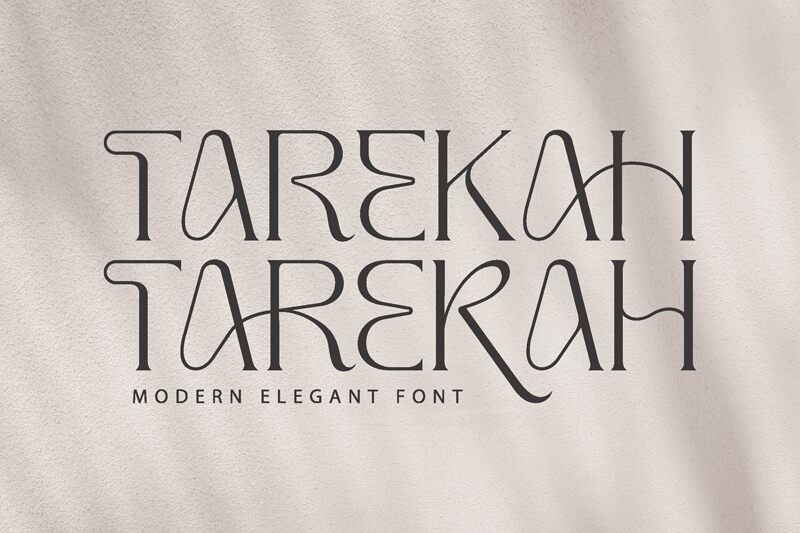
Tarekah font family by Denustudios is a free for personal use retro display typeface across 4 font styles. This artistic and refined font is perfect for contemporary applications in fashion or luxury branding where a sleek, modern aesthetic is desired. The minimalist design evokes a sense of high-end sophistication, which makes it highly preferred for branding in the hospitality, real estate, or cosmetic industries.
The versatility of Tarekah makes it perfect for a wide range of projects, including product labels, brochures, websites, e-books, wedding cards, letterheads, and other stationery items. Use it in posters, featured images, video thumbnails, book covers, fashion magazines, and anywhere a strong statement is needed.
Proudly presenting Tarekah, a modern serif font created by Denustudios. This typeface combines classic elegance with a unique contemporary style, making it an ideal choice for luxury logos, book and movie titles, fashion branding, magazines, clothing, lettering, quotes, and much more.